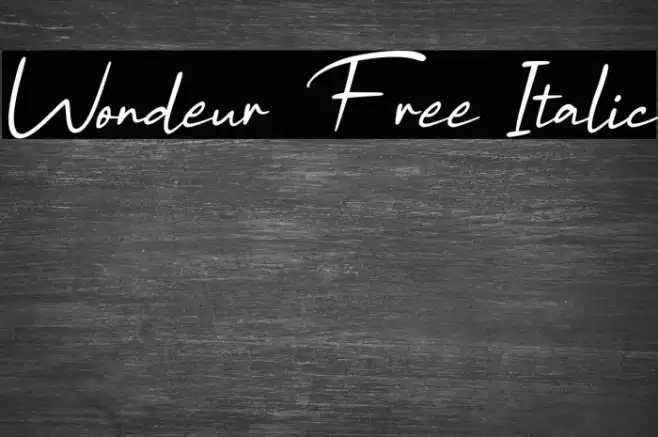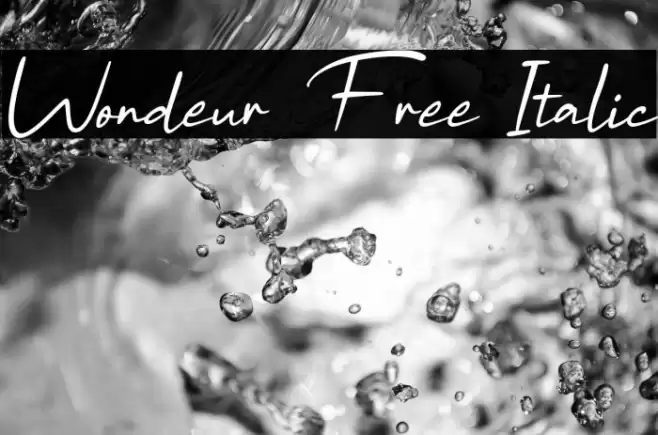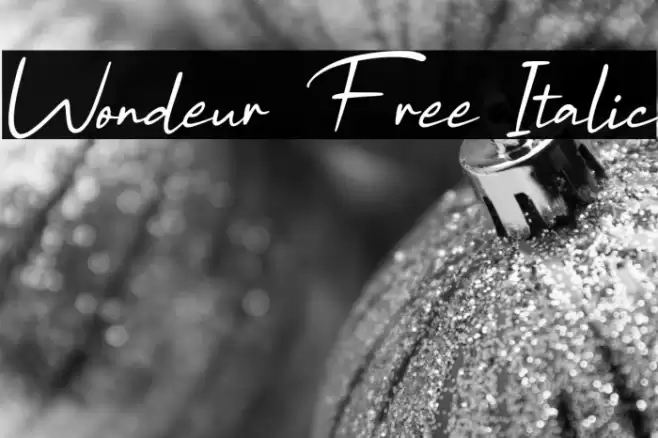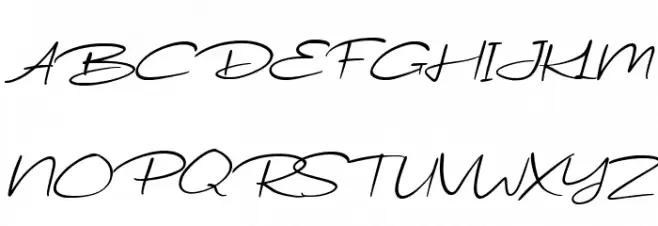
Wondeur Free Italic Font
Wondeur Free Italic Description
This font features a flowing, cursive style with elegant, sweeping strokes that give it a handwritten appearance. The letters are interconnected, creating a sense of continuity and fluidity. The uppercase letters are slightly more embellished, with extended ascenders and descenders that add a touch of sophistication. The lowercase letters maintain a consistent rhythm, enhancing readability while preserving the artistic flair. The font's italic nature adds a dynamic and expressive quality, making it suitable for creative and personal projects. Its overall design is both stylish and approachable, appealing to those seeking a modern yet classic look.
A flowing, cursive font with elegant, interconnected strokes and an italic style from Regular fonts.
- Proposed Projects: Ideal for wedding invitations, greeting cards, personal branding, and artistic projects.
- Use Case: Logos, Headlines, Invitations